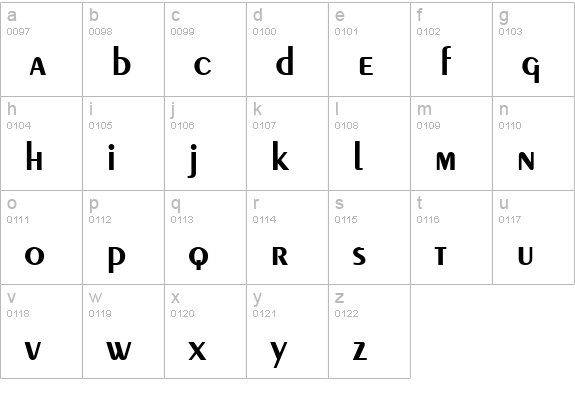
Pare Bold Font Details
Pare Bold is a strong, high-contrast variant in the Pare typeface family \xE2\x80\x94 well suited to headlines, attention-grabbing titles, and strong calls-to-action.
Introducing Pare Bold, a stunning font that effortlessly captures attention with its bold and commanding presence. This typeface exudes confidence and style, making it the perfect choice for those seeking to make a bold statement with their designs. Pare Bold features clean lines and sharp edges, giving it a modern and sleek aesthetic. Its bold weight ensures that every character stands out, making it ideal for headlines, logos, and branding projects. Whether you're designing a striking poster or creating a powerful presentation, Pare Bold is sure to leave a lasting impression. But what truly sets Pare Bold apart is its accessibility. This incredible font is freely available to download at FontsMarket.com, allowing designers and creatives to access its exceptional quality without any cost. With just a few clicks, you can elevate your designs to new heights, all while enjoying the convenience of a free download. Don't miss out on the opportunity to enhance your design arsenal with Pare Bold. Download this remarkable font today and unleash its power in your next project.